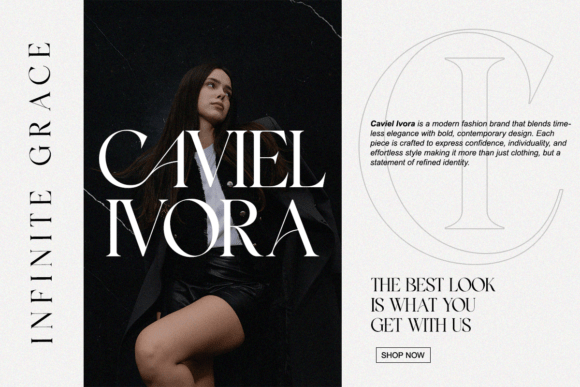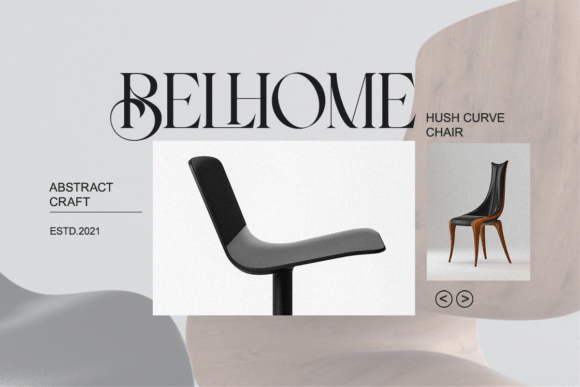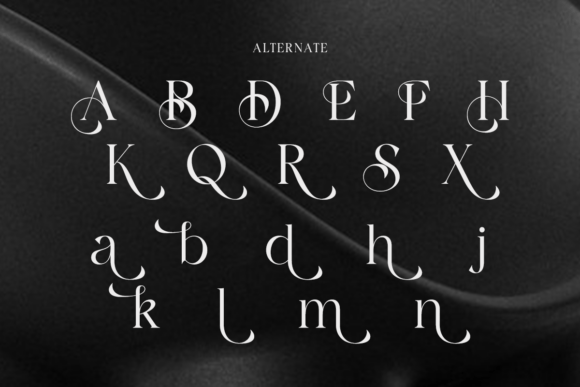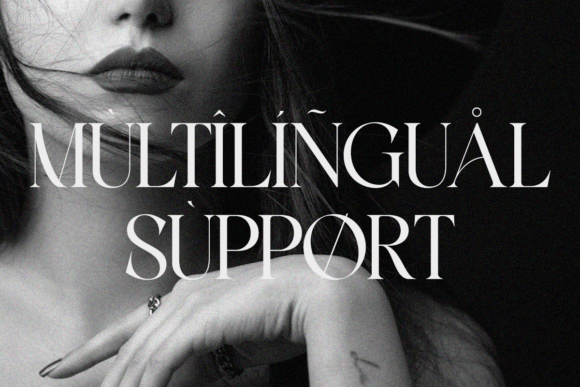
Flamicia Font
Flamicia Font is a luxury modern serif typeface that combines refined elegance with editorial charm. Its contrast and stylish ligatures make it ideal for fashion logos, magazines, beauty branding, and premium packaging. Designed to command attention with poise and grace, Flamicia defines modern luxury in typography.